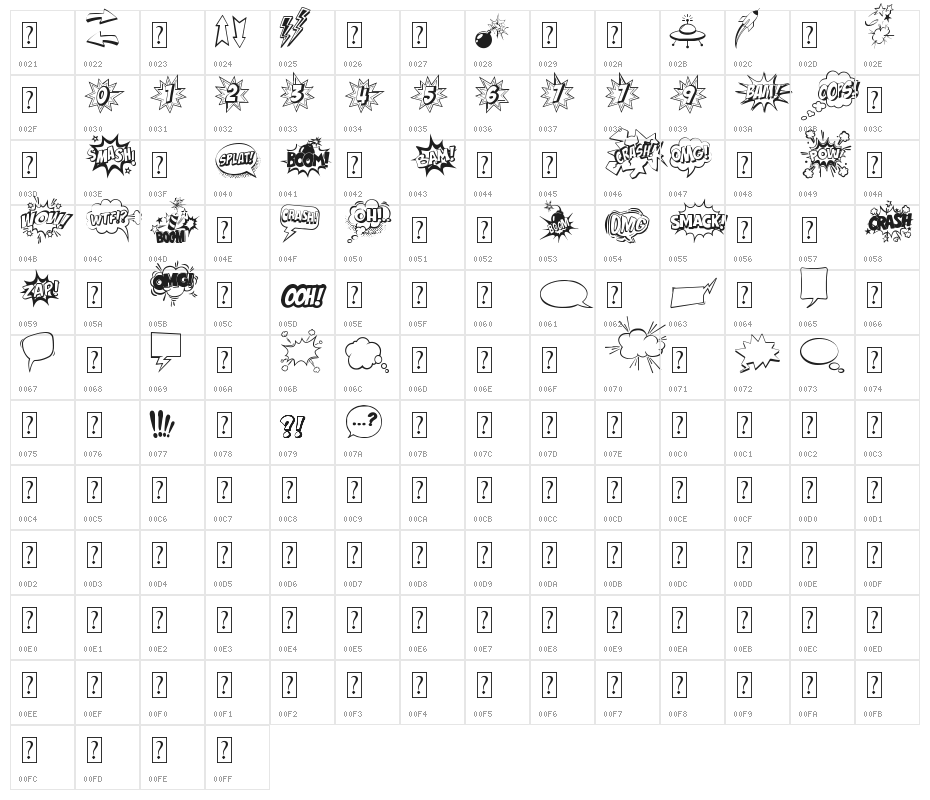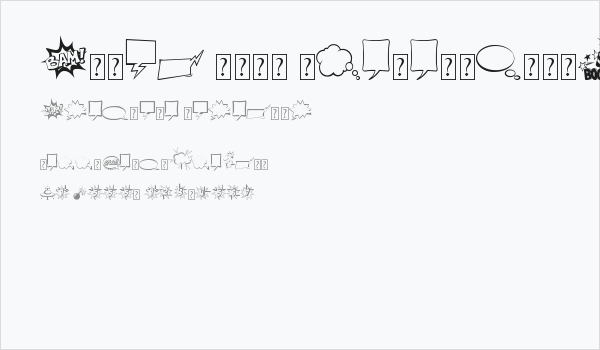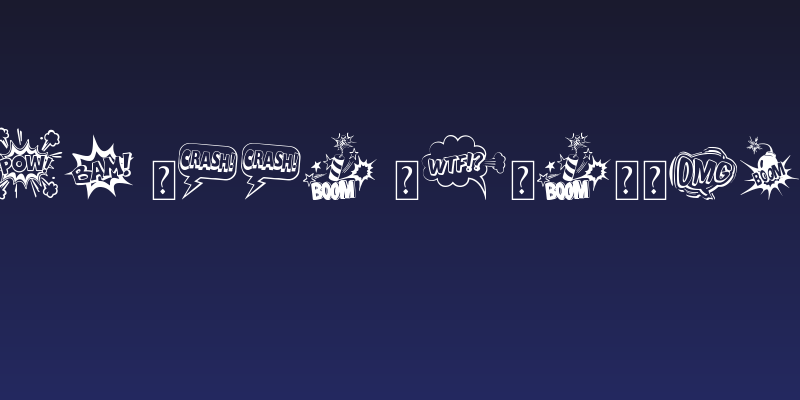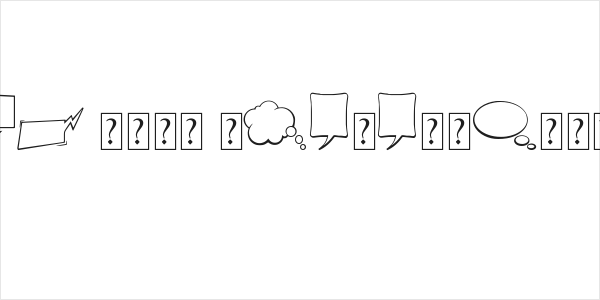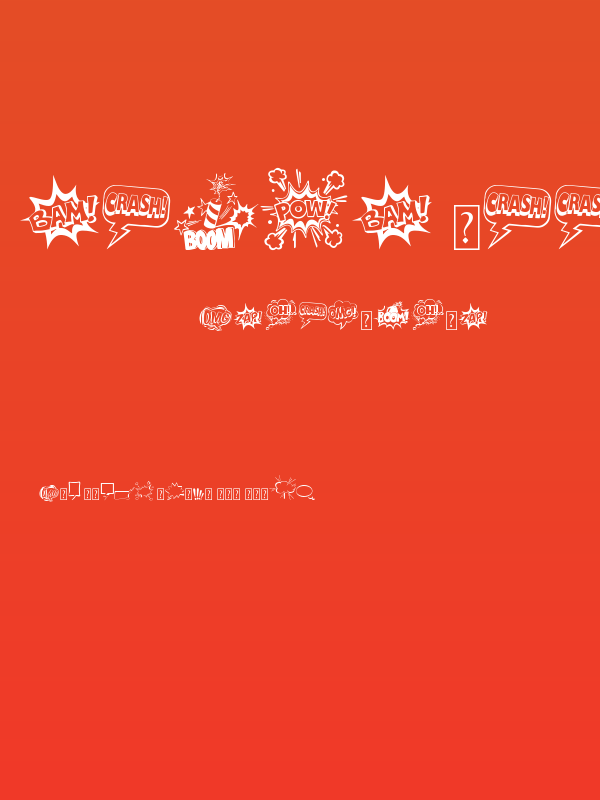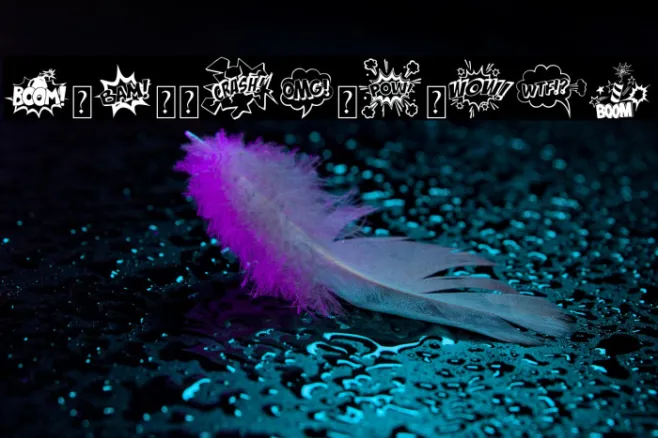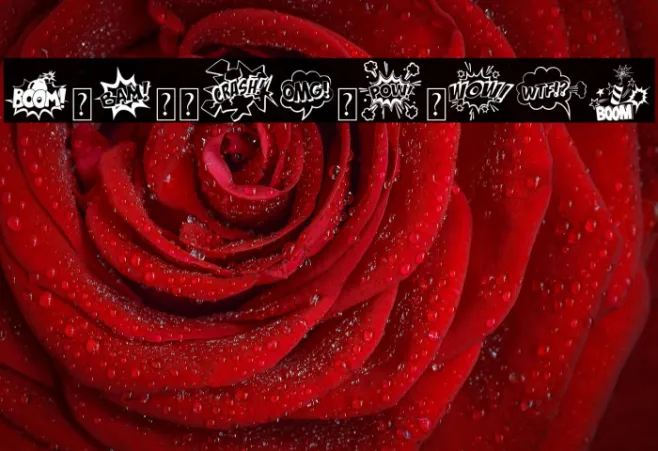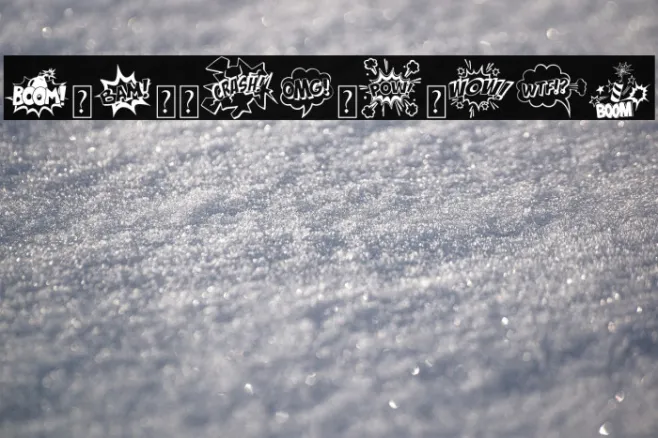
Comic Boom Elements_DEMO Font
Comic Boom Elements_DEMO Description
This collection features a dynamic and playful set of comic-style elements, perfect for adding a burst of energy to any design. The elements include a variety of explosive words like 'BOOM', 'CRASH', and 'POW', each encapsulated in starburst shapes that convey action and excitement. Speech bubbles and exclamatory symbols enhance the comic book feel, making it ideal for graphic novels or playful designs. The numbers are presented in a bold, starburst style, maintaining the energetic theme. Overall, these elements are designed to capture attention and convey a sense of fun and action.
| Overall Style | Playful, Energetic, Comic |
| Use Case | Logos, Posters, Comic Books |
| Proposed Projects | Ideal for comic book designs, children's book illustrations, playful posters, and dynamic advertisements. |